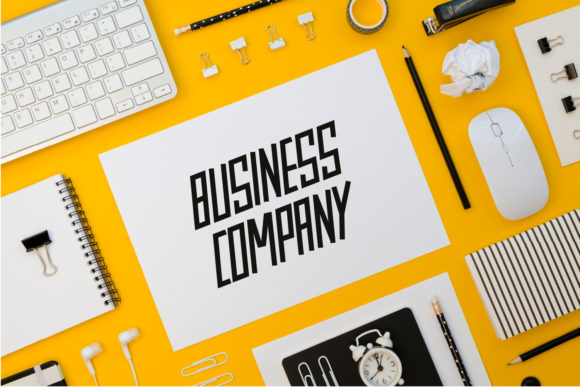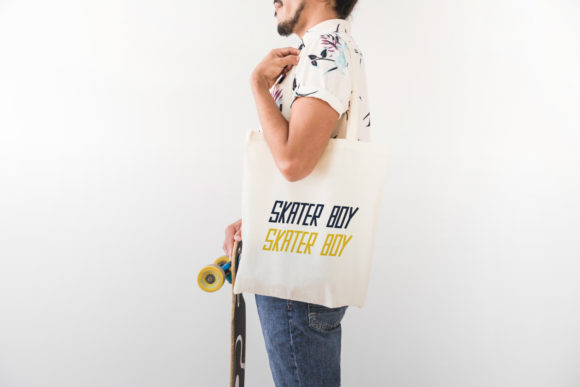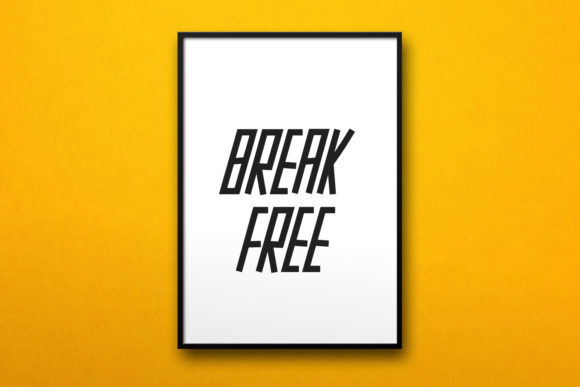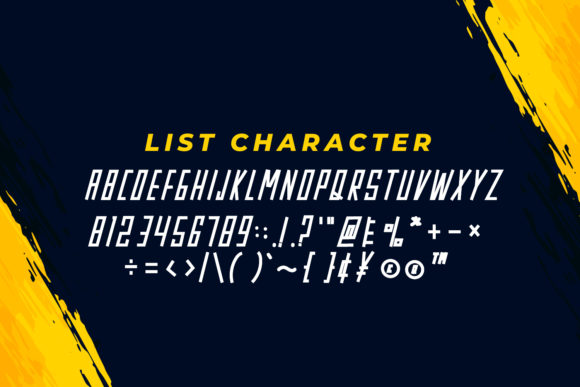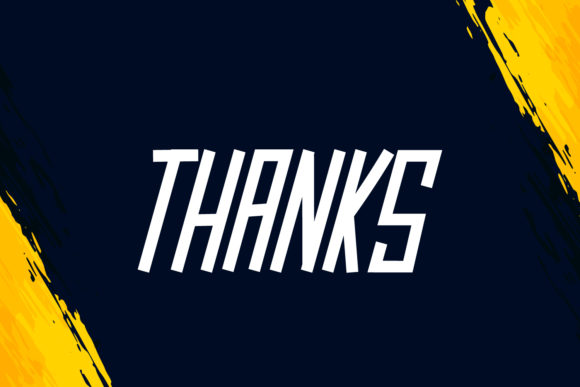
Brojolo Font: A Daring Display Font for Crafty Ideas
In the world of typography, fonts play a crucial role in conveying the tone and personality of a brand or design. For crafty individuals, designers, and DIY enthusiasts, finding the perfect font can make all the difference in bringing their ideas to life. This is where Brojolo Font comes in – a daring display font that is sure to appeal to a wide range of creative projects.
What is Brojolo Font?
Brojolo Font is a unique and genuine display font that is designed to make a statement. Its bold and daring appearance makes it perfect for use in letterheads, titles, stationery, and other design projects where a strong visual impact is desired. Whether you’re looking to create a bold logo, craft a stylish invitation, or design a striking poster, Brojolo Font is an excellent choice.
Key Features of Brojolo Font
- Bold and Daring Appearance: Brojolo Font features a robust and confident design that is sure to grab attention.
- Versatile: This font is suitable for a wide range of design projects, from letterheads and titles to stationery and posters.
- Genuine Look: Brojolo Font has a genuine and authentic appearance that will add a touch of personality to your designs.
- Easily Readable: Despite its bold appearance, Brojolo Font is easy to read, making it perfect for use in titles, headings, and other display text.
Uses of Brojolo Font
Brojolo Font is a versatile font that can be used in a variety of design projects, including:
- Letterheads and Stationery: Add a touch of professionalism and personality to your letterheads and stationery with Brojolo Font.
- Titles and Headings: Use Brojolo Font to create bold and eye-catching titles and headings for your posters, flyers, and brochures.
- Logos and Branding: Create a strong and memorable logo with Brojolo Font that will help your brand stand out.
- Invitations and Announcements: Use Brojolo Font to craft stylish and attention-grabbing invitations and announcements.
Why Choose Brojolo Font?
With so many fonts available, why choose Brojolo Font? Here are a few reasons:
- Unique and Distinctive: Brojolo Font has a unique and distinctive appearance that will set your designs apart from the rest.
- Easily Customizable: Brojolo Font is easily customizable, allowing you to adjust the font size, color, and style to suit your design needs.
- High-Quality: Brojolo Font is a high-quality font that is designed to produce crisp and clear results, even at large sizes.
Tips for Using Brojolo Font
Here are a few tips for using Brojolo Font effectively in your designs:
- Use it Sparingly: Brojolo Font is a bold font, so use it sparingly to avoid overwhelming your design.
- Pair it with Other Fonts: Pair Brojolo Font with other fonts to create a visually appealing contrast.
- Experiment with Colors: Experiment with different colors to find the perfect combination that suits your design.
Brojolo Font is a daring display font that is perfect for crafty individuals, designers, and DIY enthusiasts. Its bold and genuine appearance makes it suitable for a wide range of design projects, from letterheads and titles to stationery and posters. With its versatility, readability, and high-quality design, Brojolo Font is an excellent choice for anyone looking to add a touch of personality to their designs.